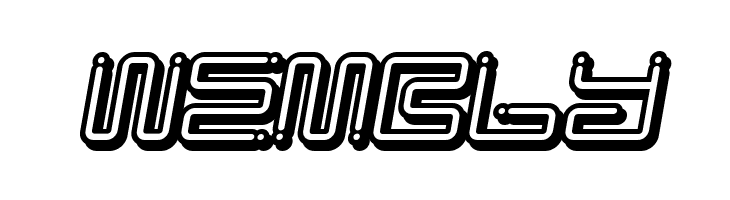
Short Zippers Font
- Font: Short Zippers
( Fonts by Astigmatic One Eye Typographic Institute - Brian J. Bonislawsky - astigmatic.com )
A bold, modern font with a unique horizontal line pattern for a dynamic look.